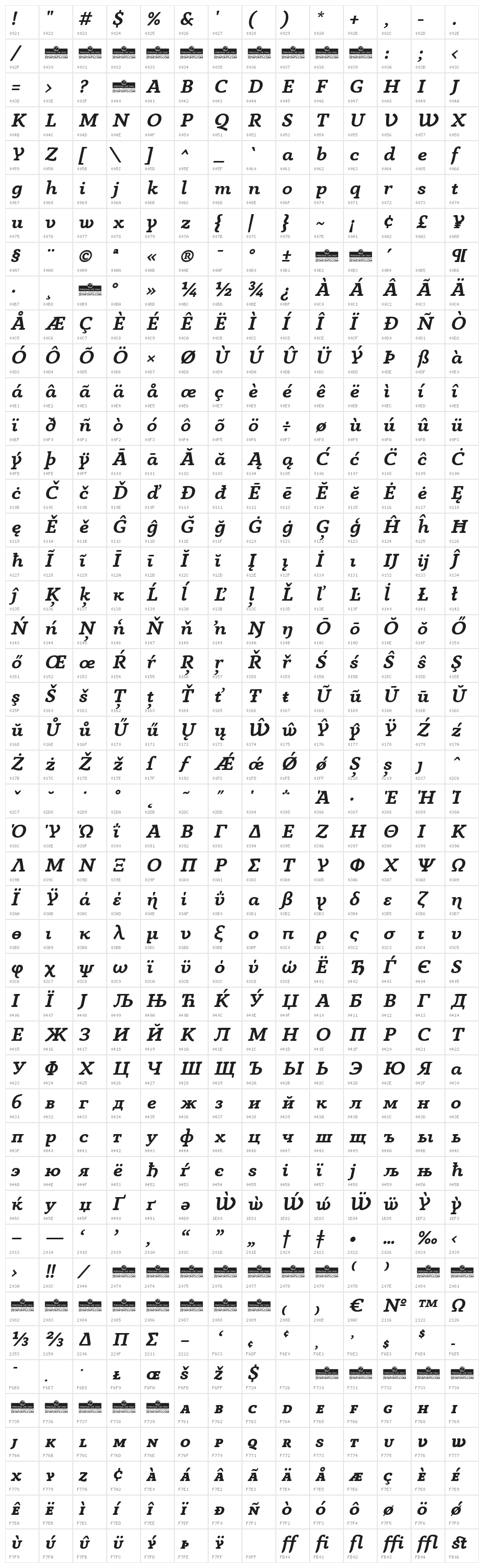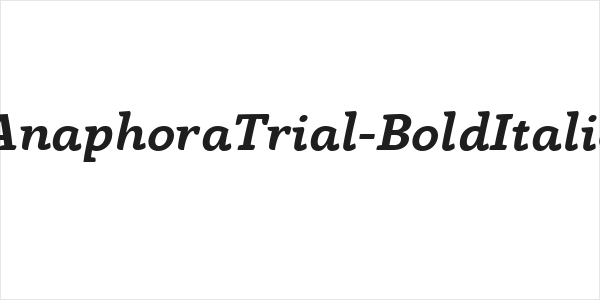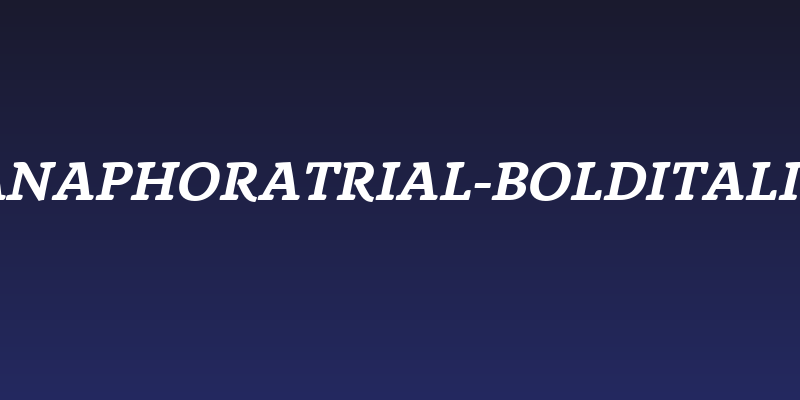
AnaphoraTrial-BoldItalic Font
AnaphoraTrial-BoldItalic Description
This font exhibits a bold and italicized style, characterized by its strong, slanted strokes and dynamic presence. The uppercase letters maintain a consistent height, while the lowercase letters are slightly more rounded, providing a harmonious balance. The numerals are clear and legible, with a slight slant that complements the overall italic nature. Special characters are distinct and well-defined, ensuring versatility in various contexts. The font's boldness is evident in its thick strokes, which are consistent throughout, enhancing readability and impact.
| Proposed Projects | Ideal for branding, headlines, and advertising materials where a bold statement is needed. |